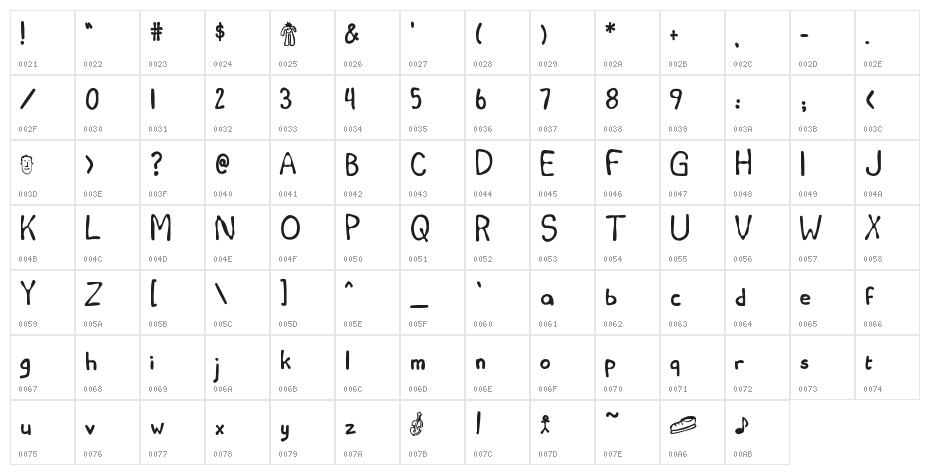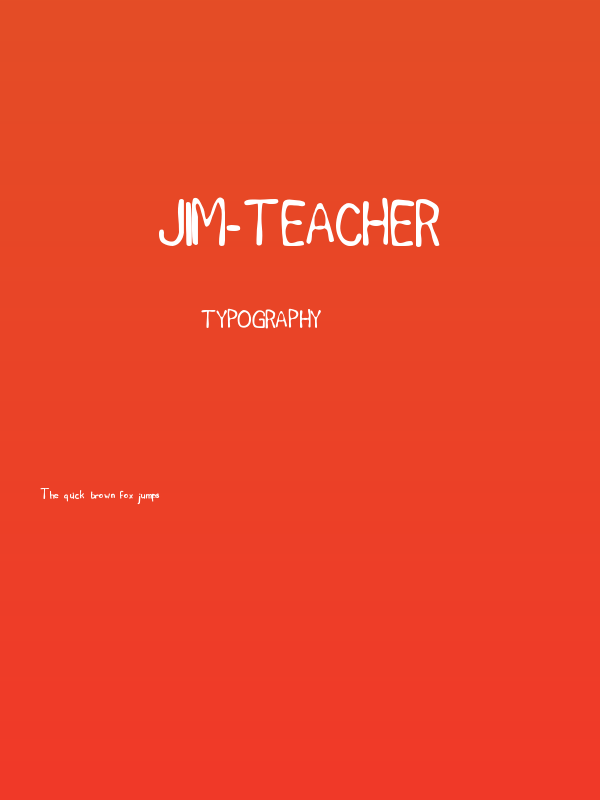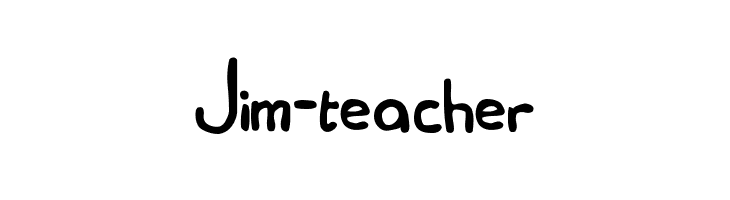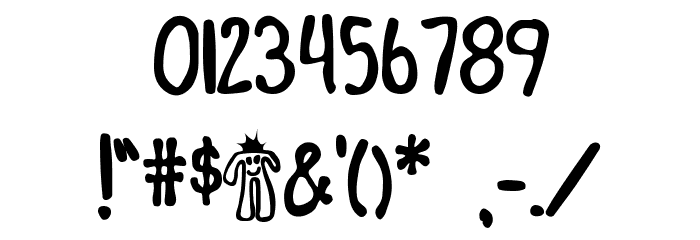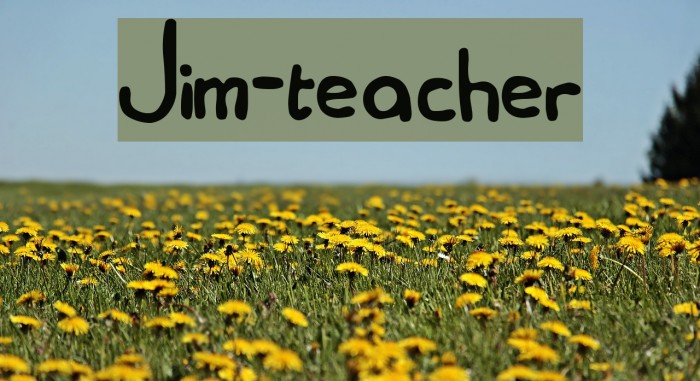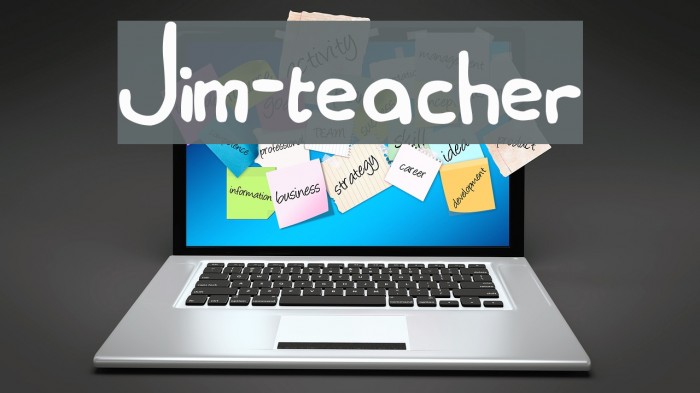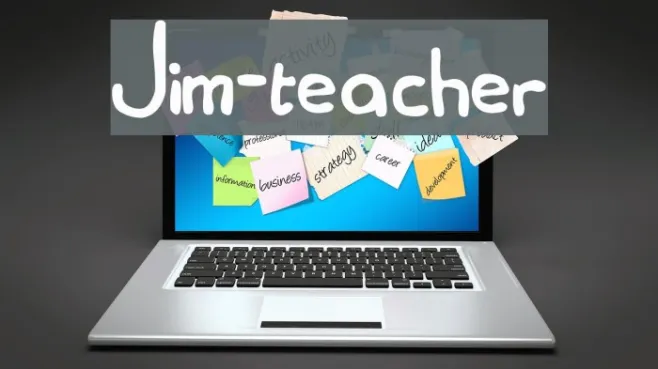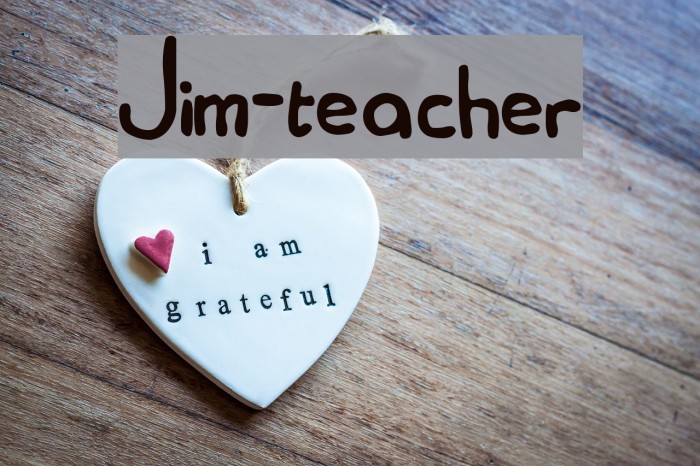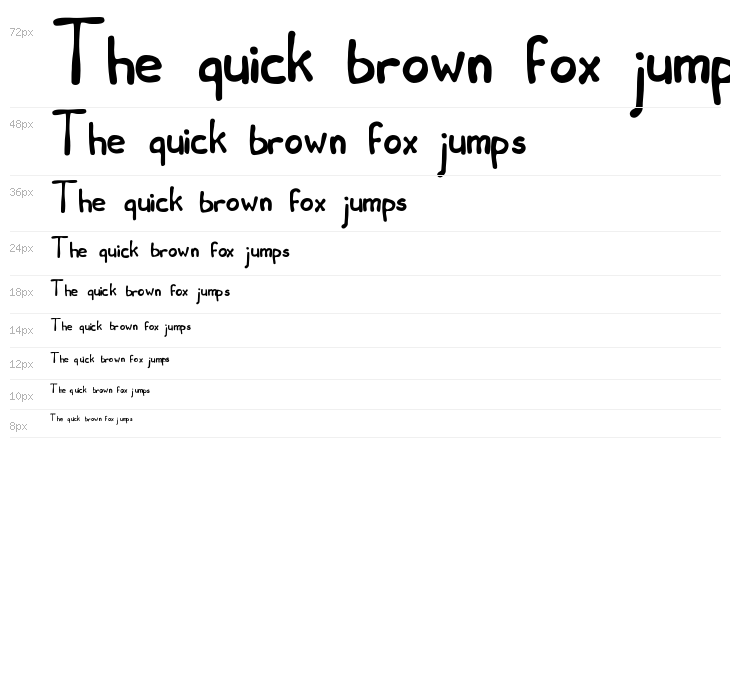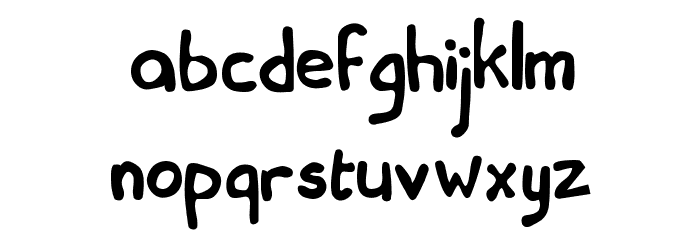
Jim-teacher Font
Jim-teacher Description
This playful and whimsical font features a hand-drawn style with rounded edges and irregular strokes, giving it a friendly and approachable appearance. The letters are slightly uneven, adding to the casual and informal vibe. The uppercase and lowercase characters maintain a consistent style, with a slight tilt and varying line thickness that enhances its charm. The numbers and special characters follow the same playful design, making it suitable for creative and fun projects. Its unique style is perfect for capturing attention and adding a personal touch to any design.
| Proposed Projects | Ideal for children's books, greeting cards, playful branding, and creative posters. |